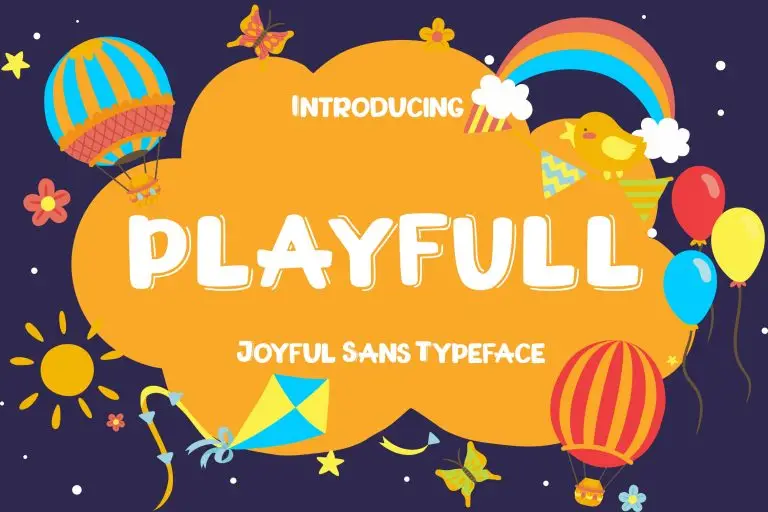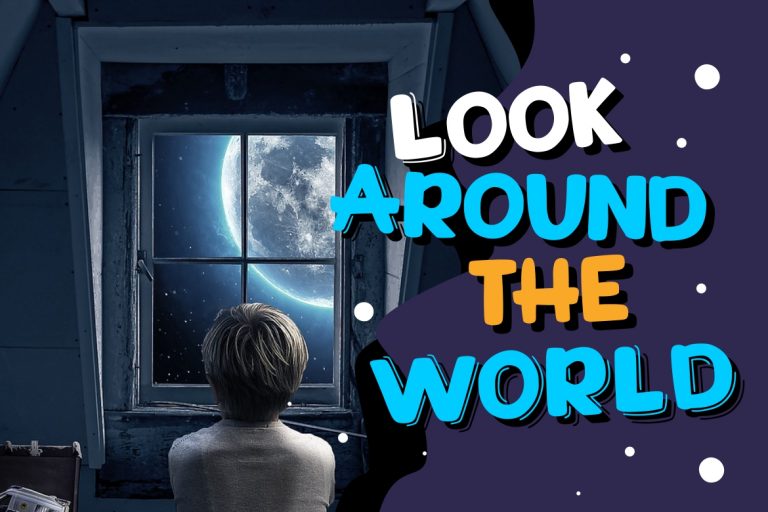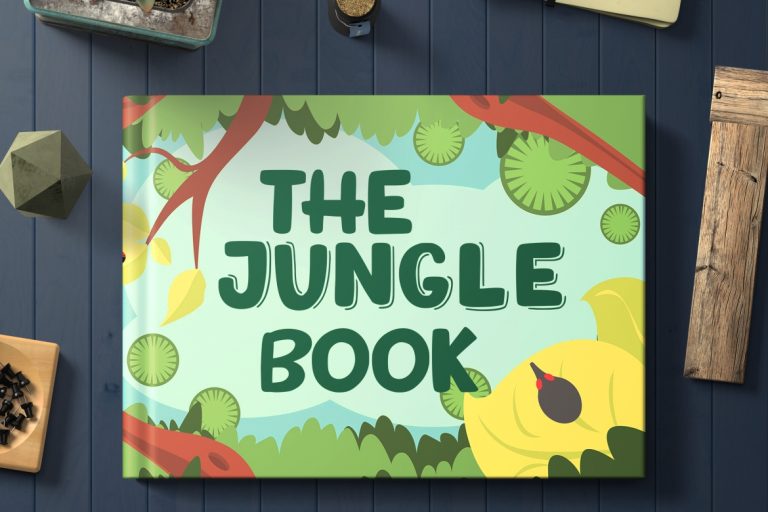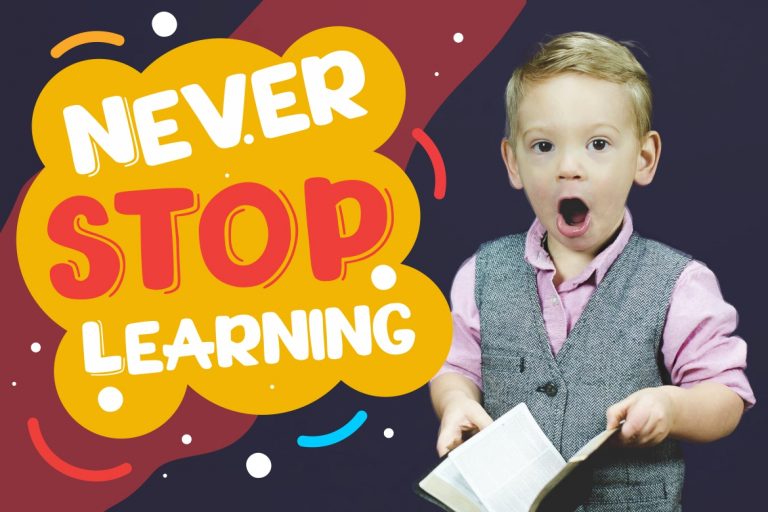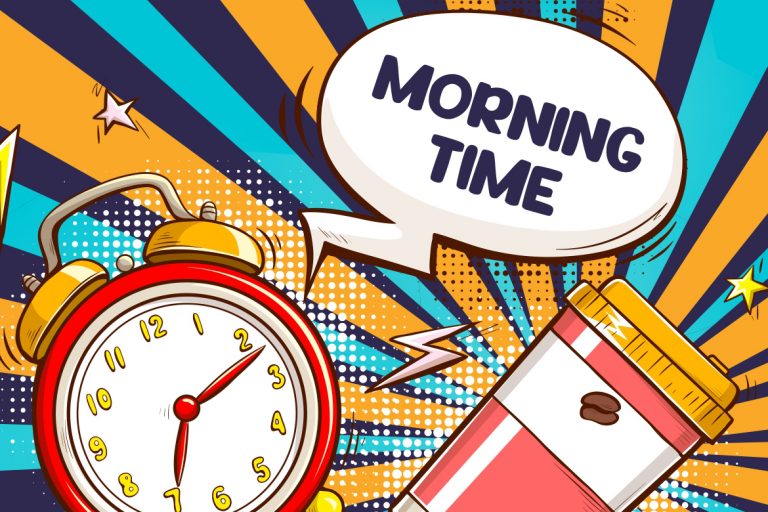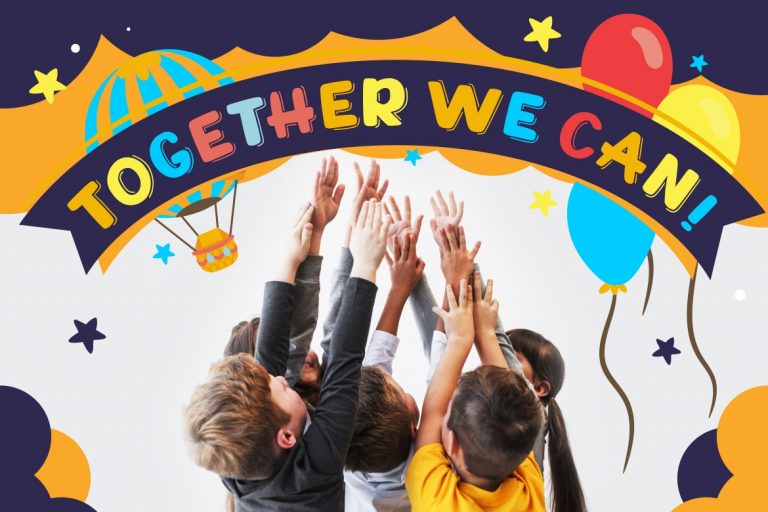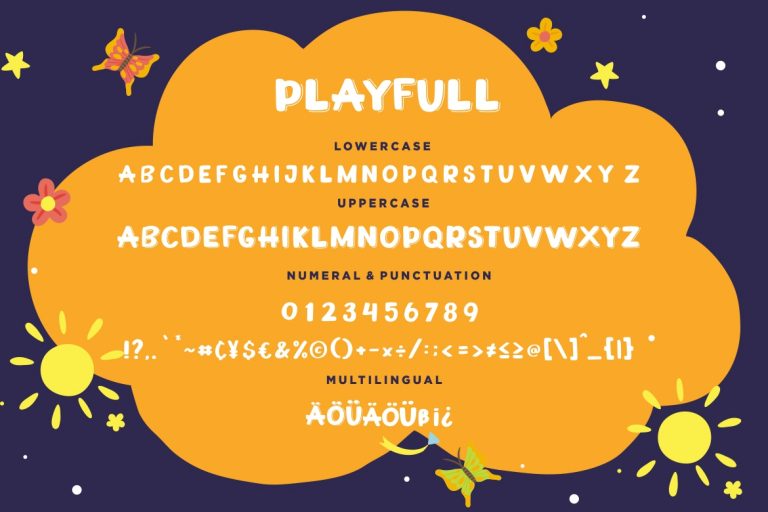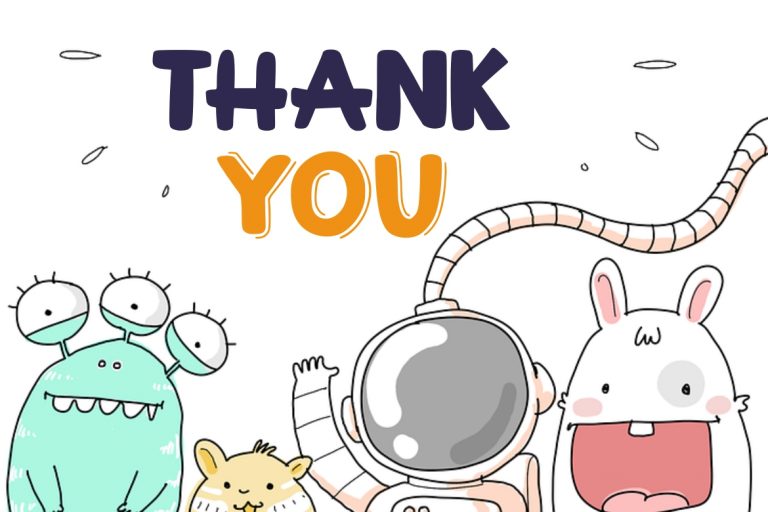
Playfull Joyful Sans
Playfull is sans serif joyful font with bold and strong for your awesome latest project.
Playfull is perfect for branding projects, logo, wedding designs, social media posts, advertisements, product packaging, product designs, label, photography, watermark, invitation, stationery and any projects that need handwriting taste.
- Fonts include multilingual support for; ä ö ü Ä Ö Ü ß ¿ ¡